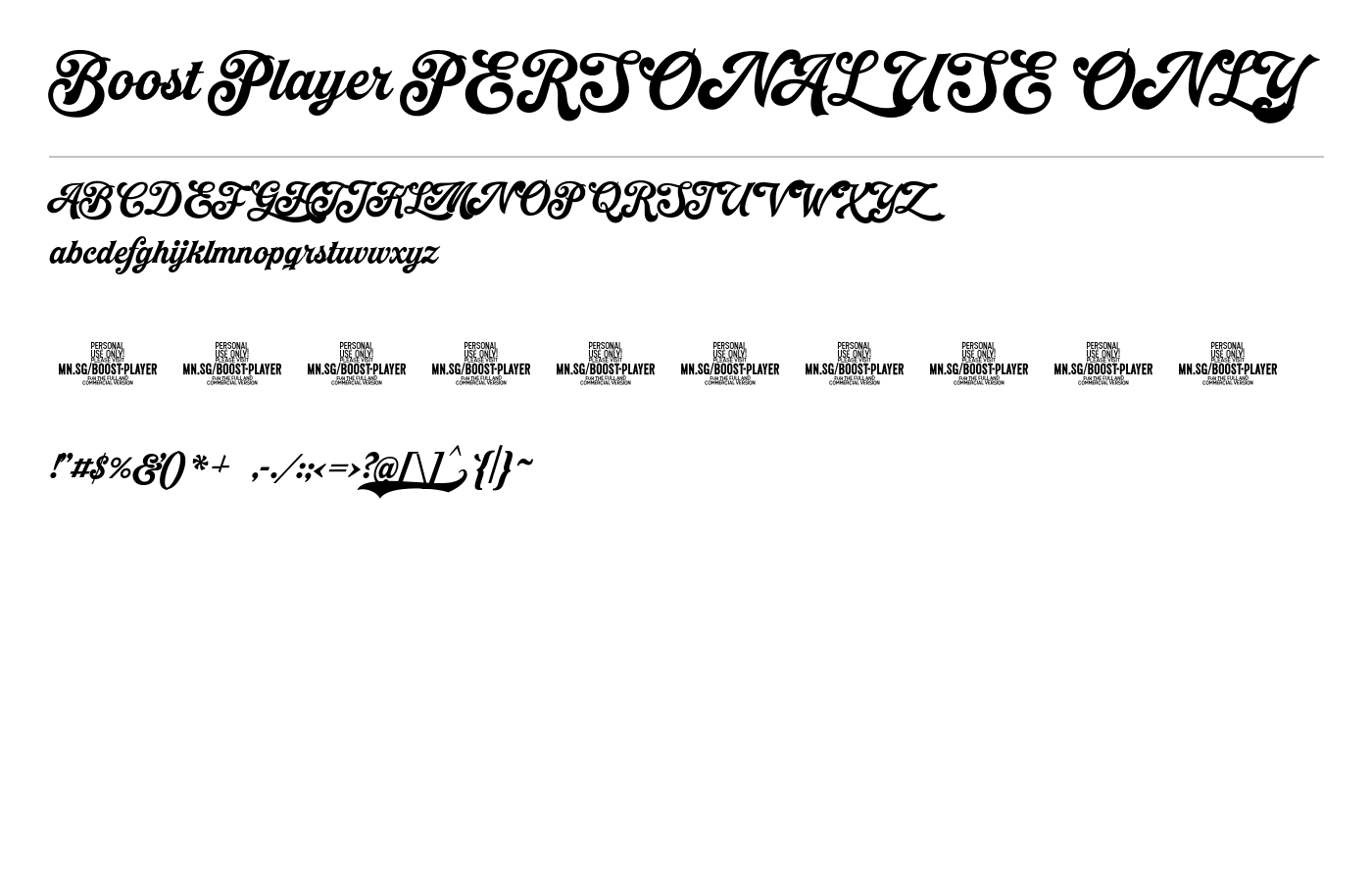
Boost Player is a bold, decorative script font with elegant, swirling letterforms that convey a vintage, playful charm. Its high contrast strokes and classic cursive style make it ideal for eye-catching logos, stylish headlines, and creative branding that seeks a touch of personality and flair. This font works best in display settings where its unique, ornate character can truly shine.
Boost Player PERSONAL USE ONLY Font
About Boost Player PERSONAL USE ONLY Font